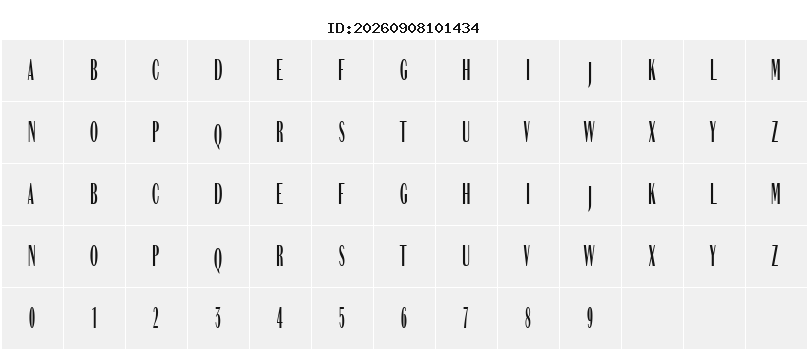
URWCompressD Preview
About URWCompressD.ttf
URWCompressD.ttf is a modern, elegant sans-serif font designed for ultimate readability and visual harmony. Perfect for branding, headlines, web design, and print materials.